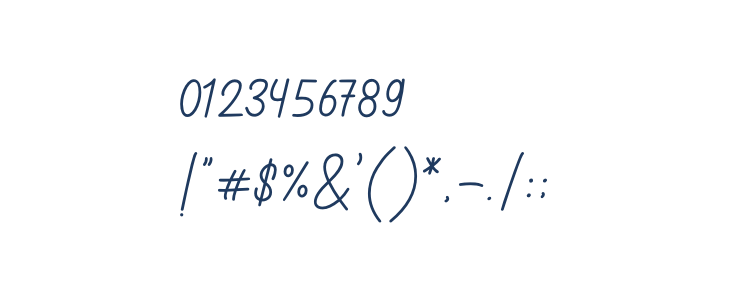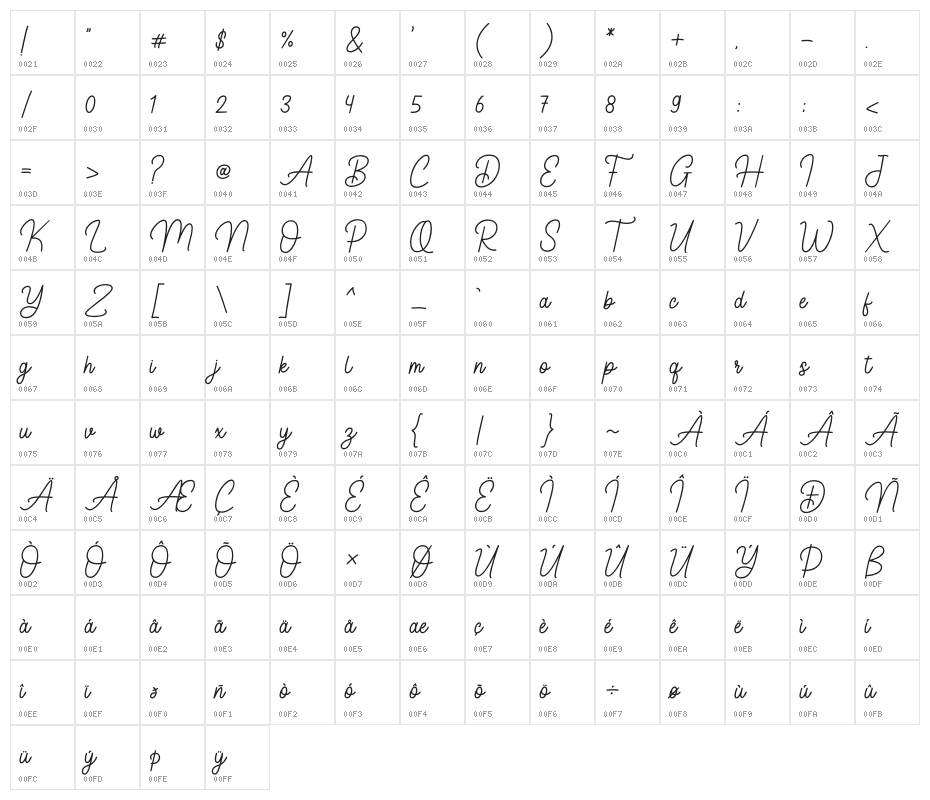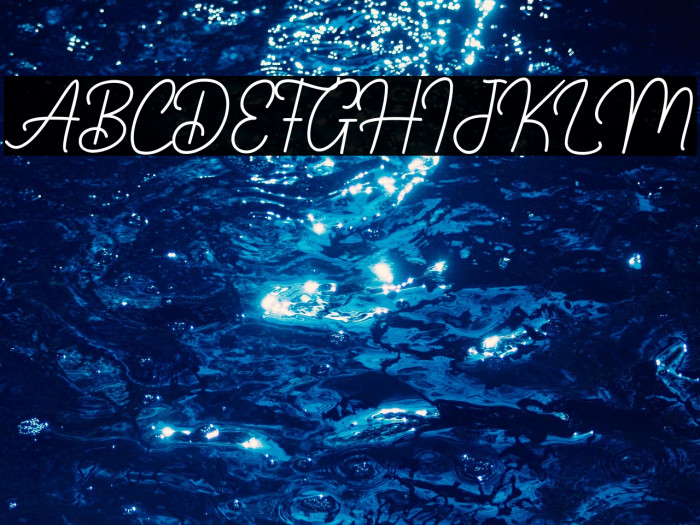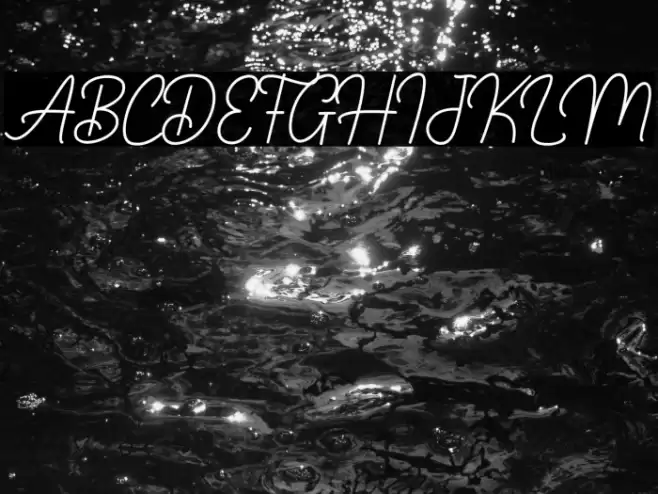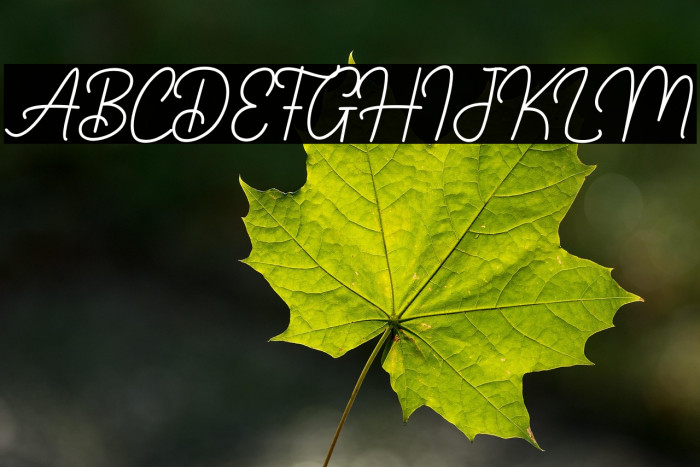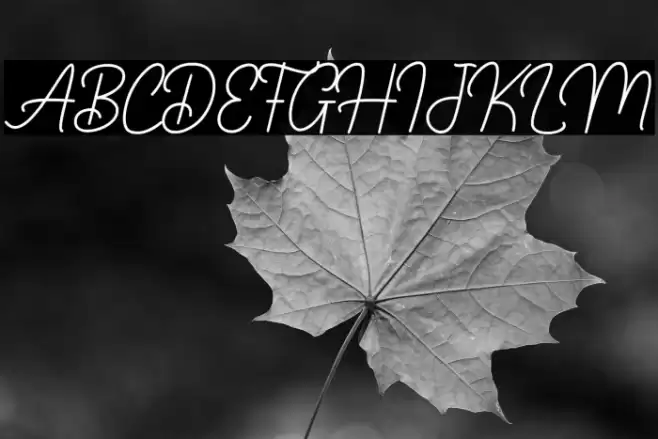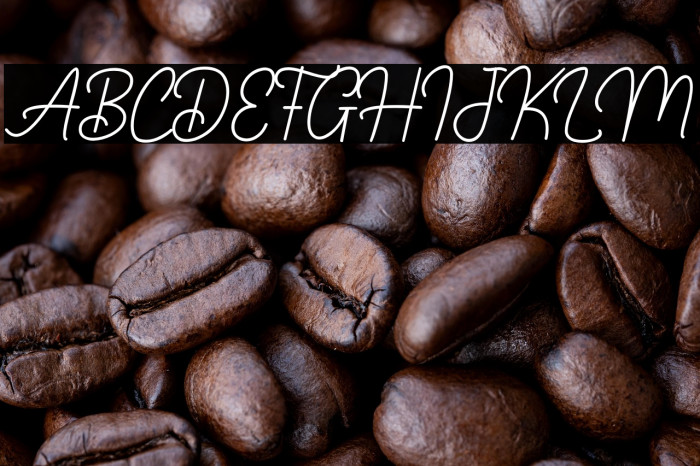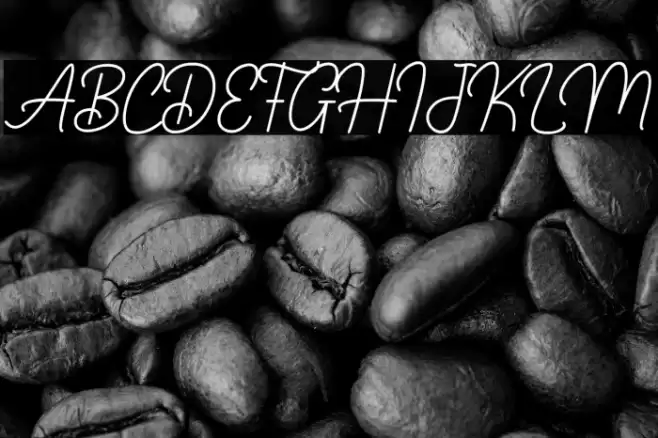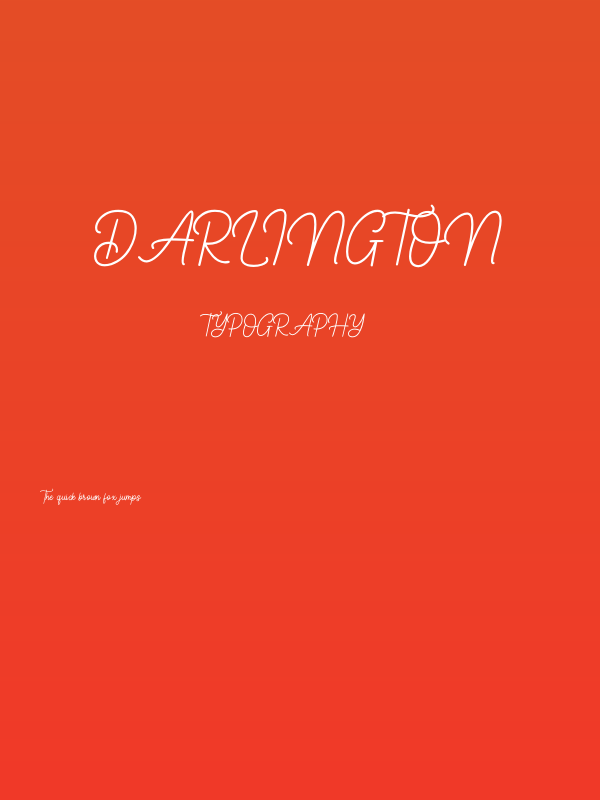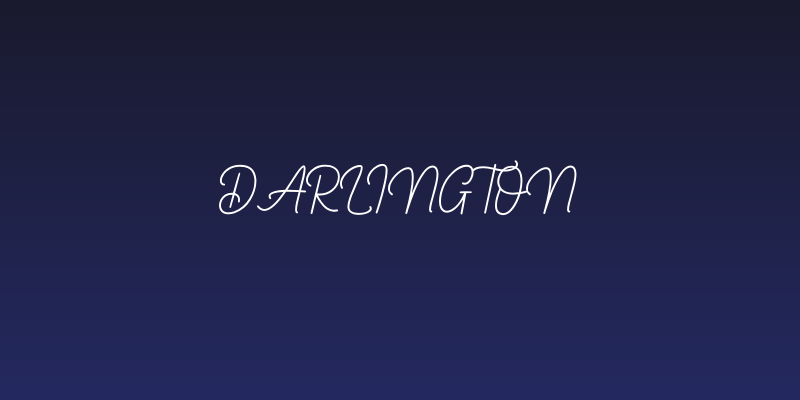
Darlington Font
Darlington Description
This font features a flowing, cursive style with elegant loops and swashes, giving it a sophisticated and graceful appearance. The uppercase letters are tall and slightly slanted, while the lowercase letters maintain a consistent baseline with smooth connections between characters. The numerals are designed to match the cursive style, with rounded edges and a slight slant. Special characters are integrated seamlessly, maintaining the overall aesthetic. The font's delicate strokes and fluid motion make it ideal for projects that require a touch of elegance and personal flair.
| Overall Style | Elegant |
| Use Case | Logos, Invitations, Personal Branding |
| Proposed Projects | Ideal for wedding invitations, greeting cards, personal branding, and elegant logos. |